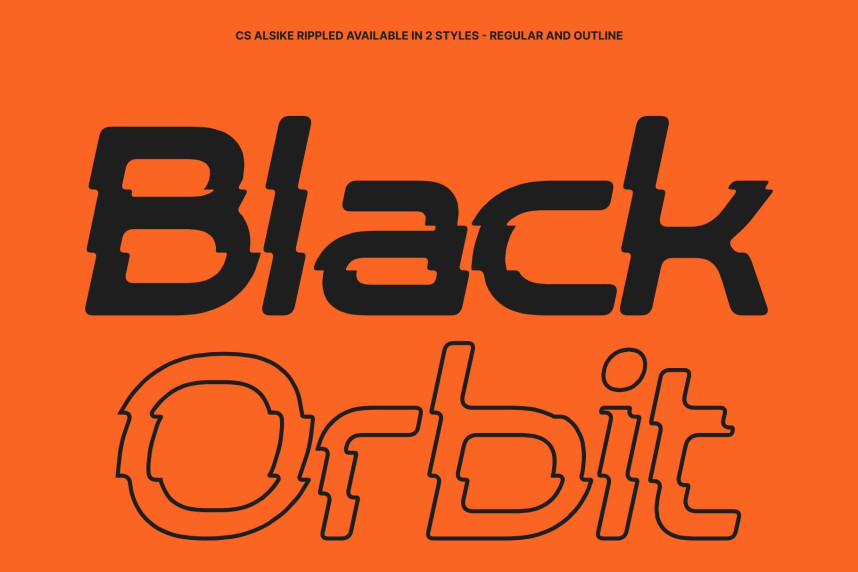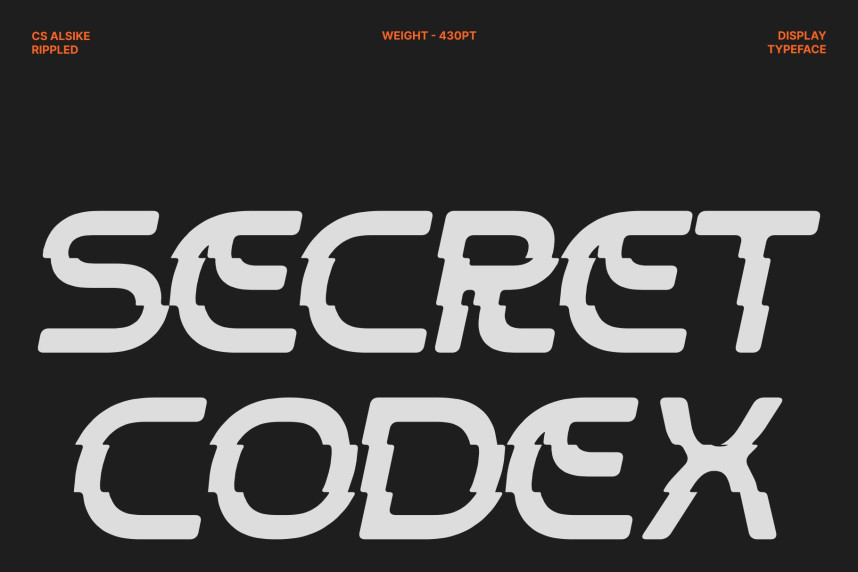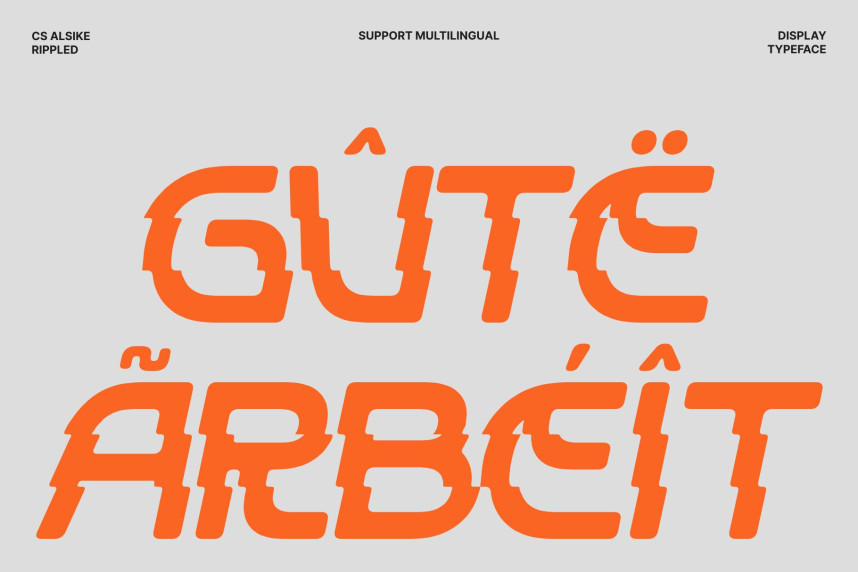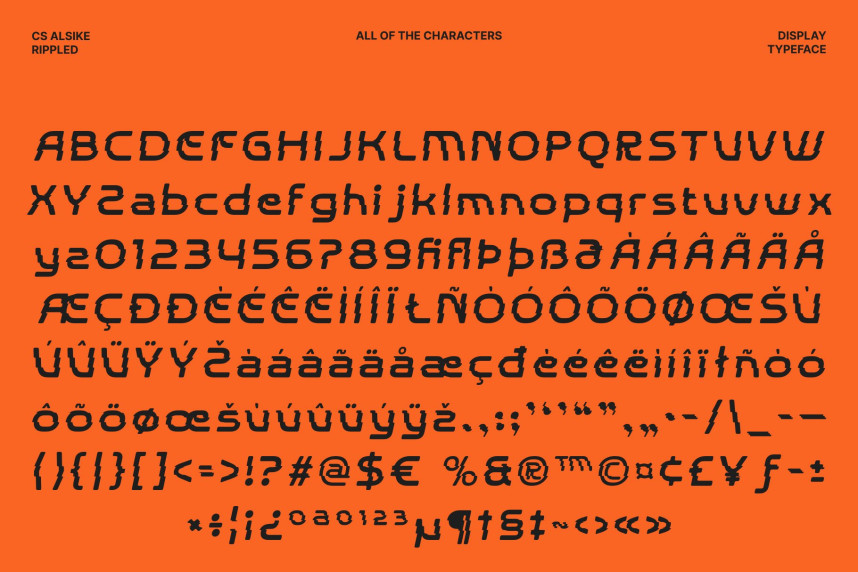
CS Alsike Rippled Font
CS Alsike Rippled Font – Futuristic Font with Liquid Tech Motion
Bold, Geometric, and Forward-Thinking Design
This is a modern futuristic display sans serif built with sharp angles, geometric precision, and a powerful visual presence. The structured letterforms create a sleek and confident typographic voice that immediately communicates innovation and modernity. Its bold construction ensures strong readability while delivering a striking visual identity, making it ideal for projects that aim to feel cutting-edge and forward-looking.